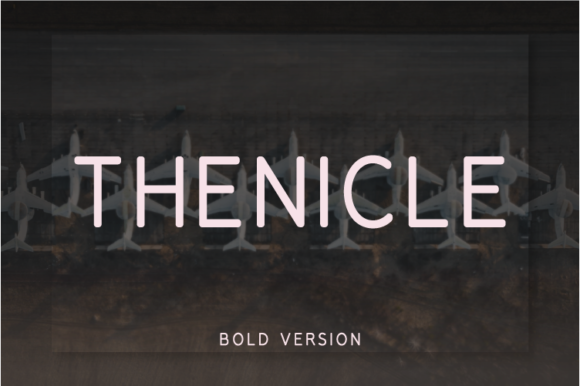
Thenicle: A Timeless Treasure, a Unique Work of Art in Sans-Serif Form
Welcome to the realm of Thenicle, a sans-serif font that transcends ordinary conceptions of beauty. With its modern and fanciful characters, Thenicle becomes a magnificent tool of expression. Unleash your creative potential and witness words come alive, emboldened by the distinctive strokes of Thenicle. Ideal for logo design, website creation, and eye-captching fliers, Thenicle's applications are as versatile as your design needs.
Effortless Crafting, Impeccably Designed, and Refined Sans-Serif Masterwork: Thenicle
Thenicle is a testament to the dedication of its creator, who invested their heart and soul into crafting this font. Countless hours have been lavished to ensure that each letterform is a paragon of artistry. From the refined terminals to the meticulously placed ligatures, Thenicle exalts the standards of visual aesthetics. Employ Thenicle and experience the difference that comes from using a font that's not just beautiful, but a masterpiece in its own right.
Thenicle: Your Gateway to a World of Design Delights
Thenicle's beauty extends beyond its visual aesthetics. It's a font that was made for the modern era, the one that is capable of fulfilling the needs of today's designers. With its extensive language support, Thenicle can be used to compose text in a multitude of different written language. It's an ideal font for designing greeting cards, wedding invitations, and even book covers. Thenicle is the perfect font for those who want to create designs that are both beautiful and practical.
Thenicle: An Unrivaled Sans-Serif Treasure
With Thenicle by your side, you'll never have to grapple with a dull and uninspired font collection again. Thenicle is your pathway toward the design zenith, empowering you to create designs that capturethe attention of clients and distinguish your products from the competition. From logos to posters, from fliers to product designs, Thenicle will always be there to lend its distinctive grace.